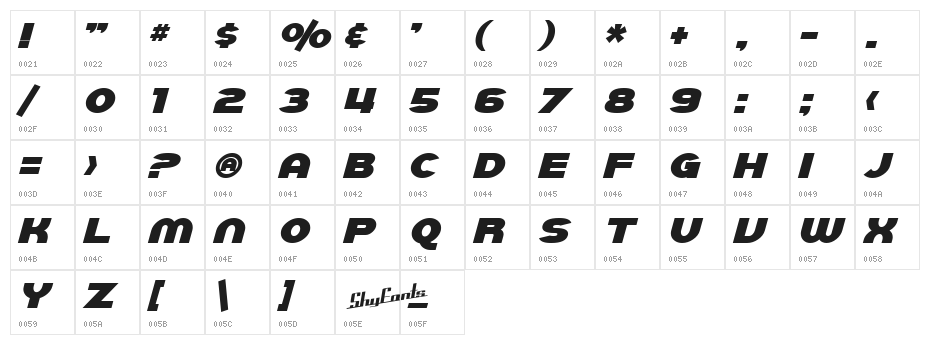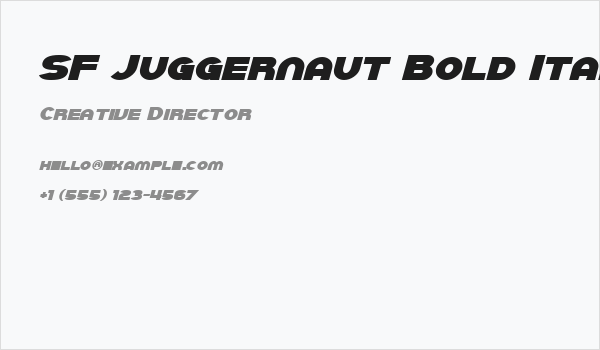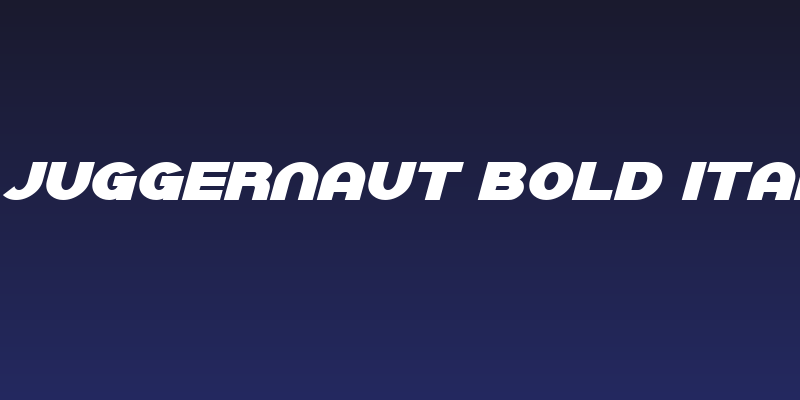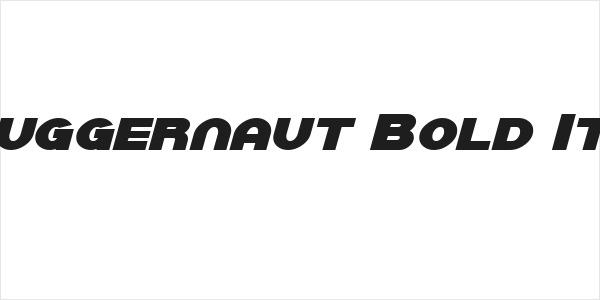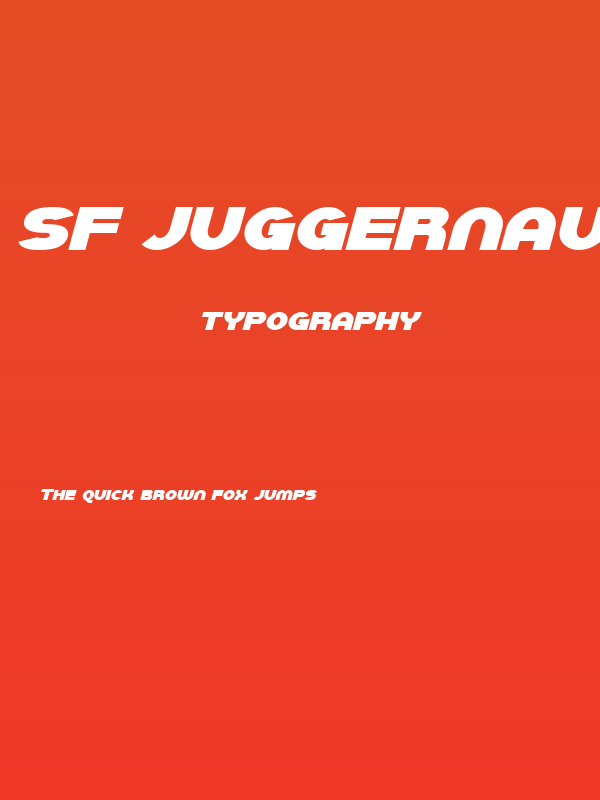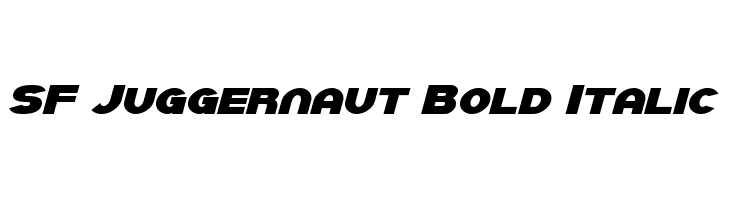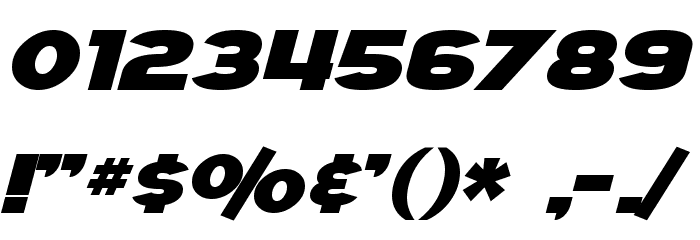
SF Juggernaut Bold Italic Font
SF Juggernaut Bold Italic Description
This bold and italicized typeface exudes a strong and dynamic presence, characterized by its thick, slanted strokes and rounded edges. The letters are tightly spaced, enhancing its compact and impactful appearance. The font's bold weight and italic style give it a sense of movement and urgency, making it ideal for attention-grabbing headlines and titles. Its modern design is both sleek and assertive, with a high contrast between the thick and thin strokes, adding to its visual interest. The font's overall style is contemporary and versatile, suitable for a variety of design projects.
| Proposed Projects | Ideal for sports branding, dynamic posters, impactful headlines, and modern advertising campaigns. |